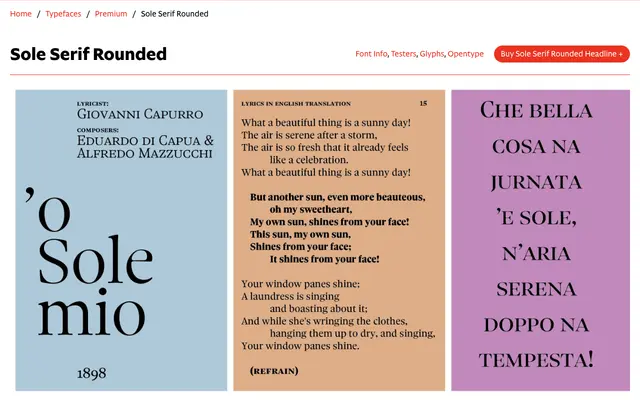
Sole Serif Rounded
CAST · Giulio Galli, Luciano Perondi · 2024
A rounded display cut of CAST's Sole Serif family, built across four optical sizes and six weights for newspaper and magazine headlines.
Derived from Sole Serif Display, this cut introduces rounded terminals, lighter joints and shorter bracketed serifs to produce a softer, more distinctive character at large sizes. The four optical sizes, Subhead, Headline, Display and BigDisplay, each carry six weights from Light to Black, giving art directors fine control over weight and scale. Suited to editorial headlines, posters and packaging where a serif needs presence without sharpness.
A bracketed serif with rounded terminals and lighter joints, designed explicitly as a display face for newspaper and magazine headlines. Its optical size range and shortened serifs place it firmly in the display serif category.